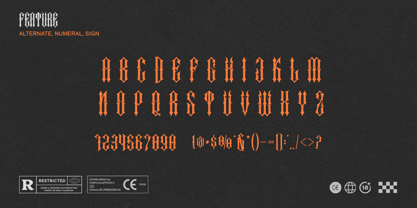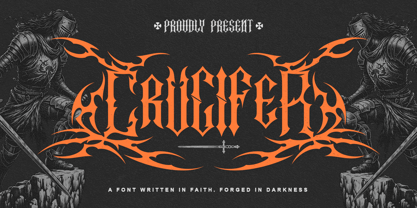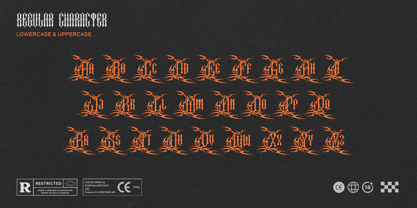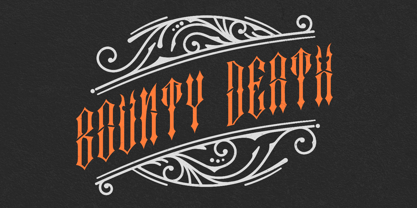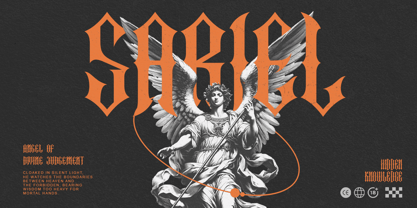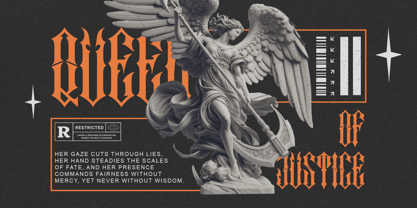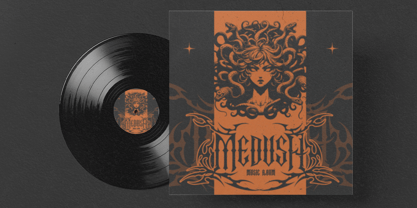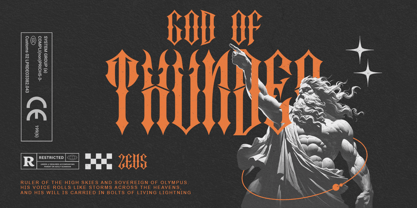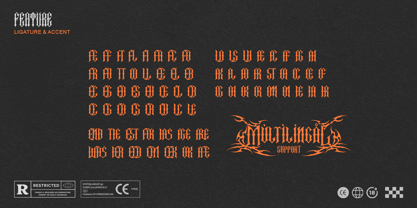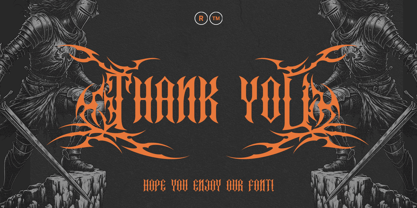
Crucifer
by Letterara
The Crucifer Font Family was designed by Thomas Aradea and published by Letterara. Crucifer contains 2 styles and family package options. More about this family
Descend into sacred darkness with Crucifer, a gothic blackletter font forged at the intersection of faith and shadow. With razor-sharp strokes, towering letterforms, and an atmosphere drawn from ancient cathedrals and forbidden manuscripts, Crucifer delivers a powerful, ritual-driven presence that feels carved in iron rather than written in ink. Designed for album covers, band logos, dark fantasy titles, tattoo designs, and cinematic visuals, this font commands attention with unapologetic intensity and solemn authority. Let Crucifer transform your typography into a symbol of dark devotion, where every letter stands in faith, and every word is forged in darkness.
Designers: Thomas Aradea
Foundry: Letterara